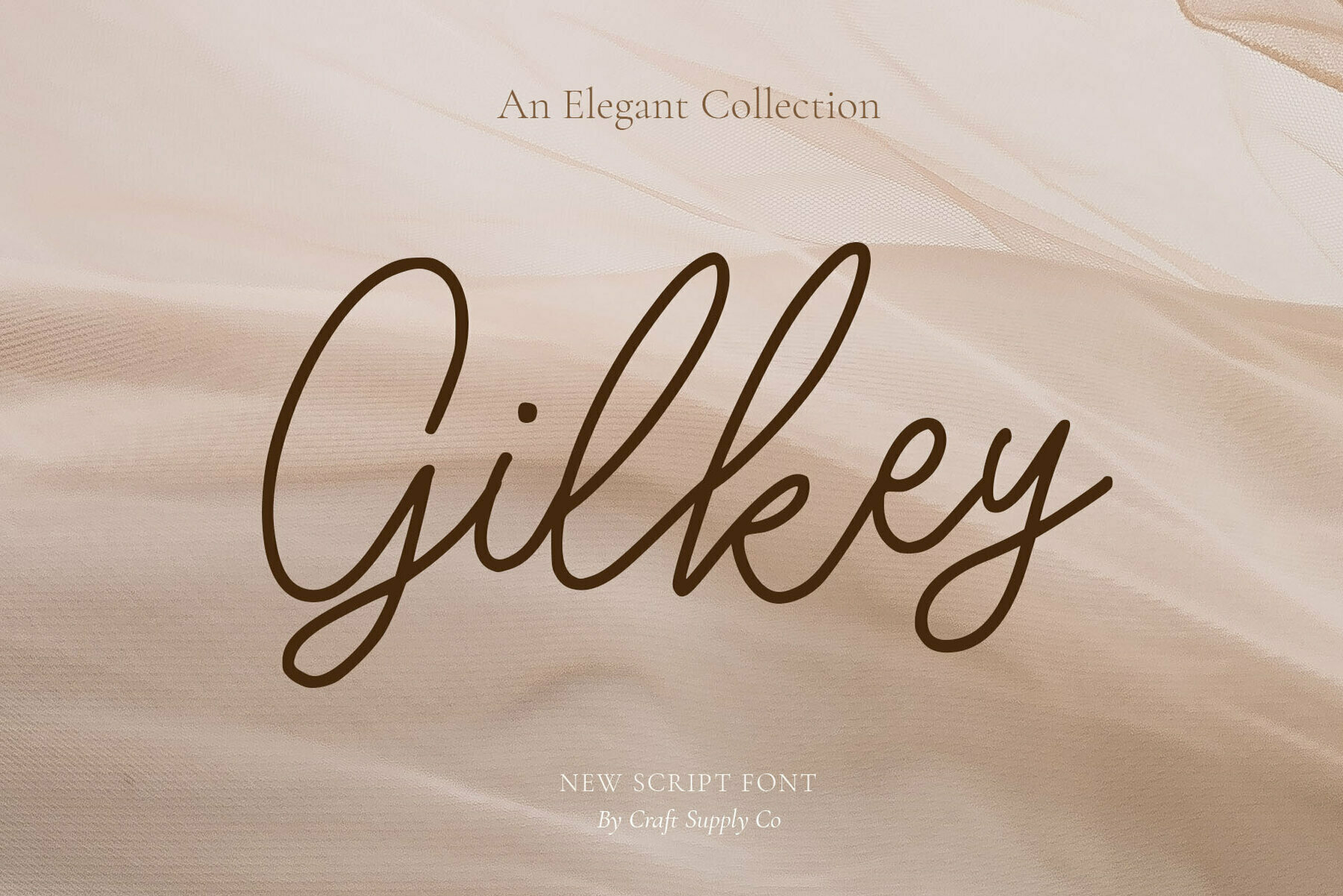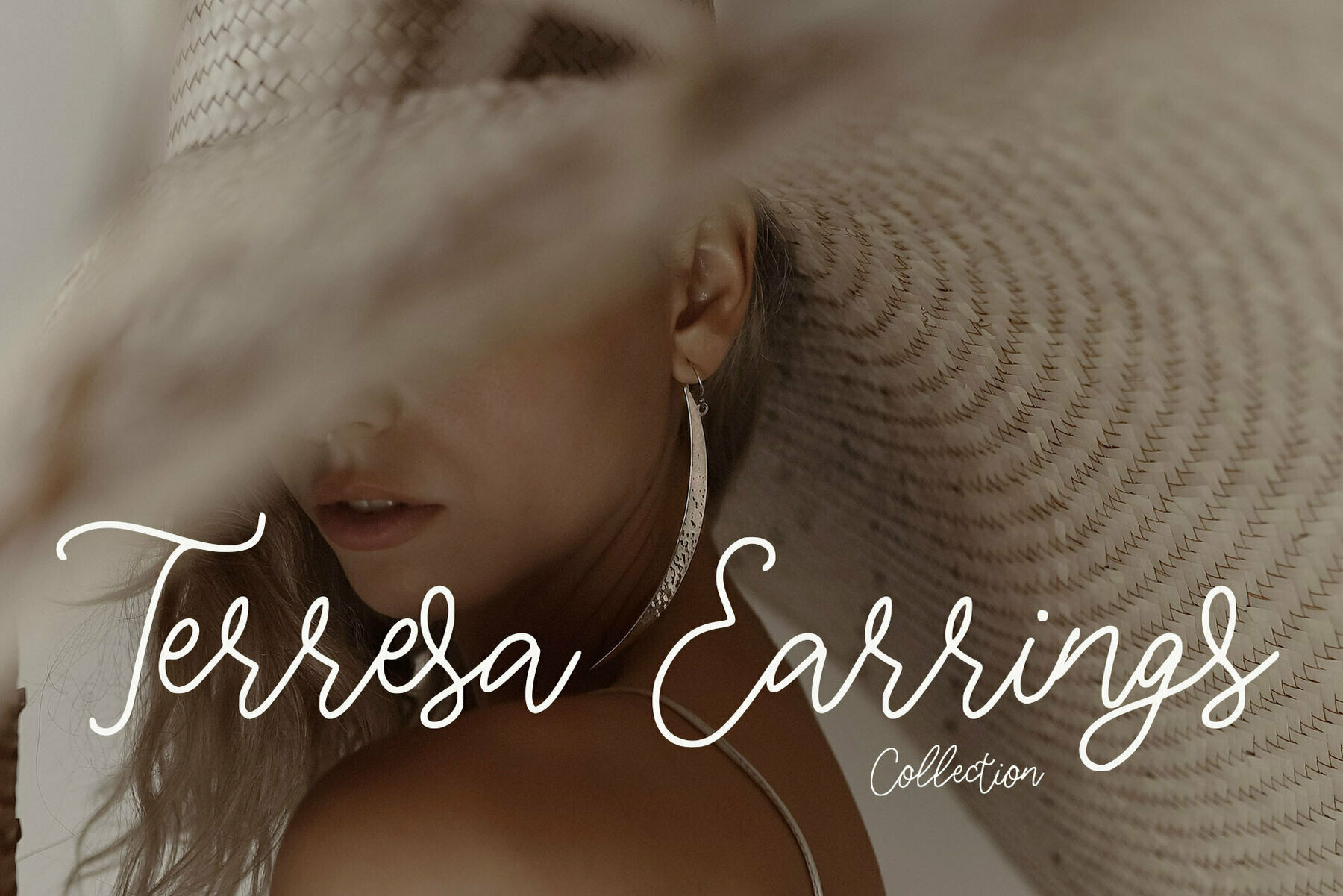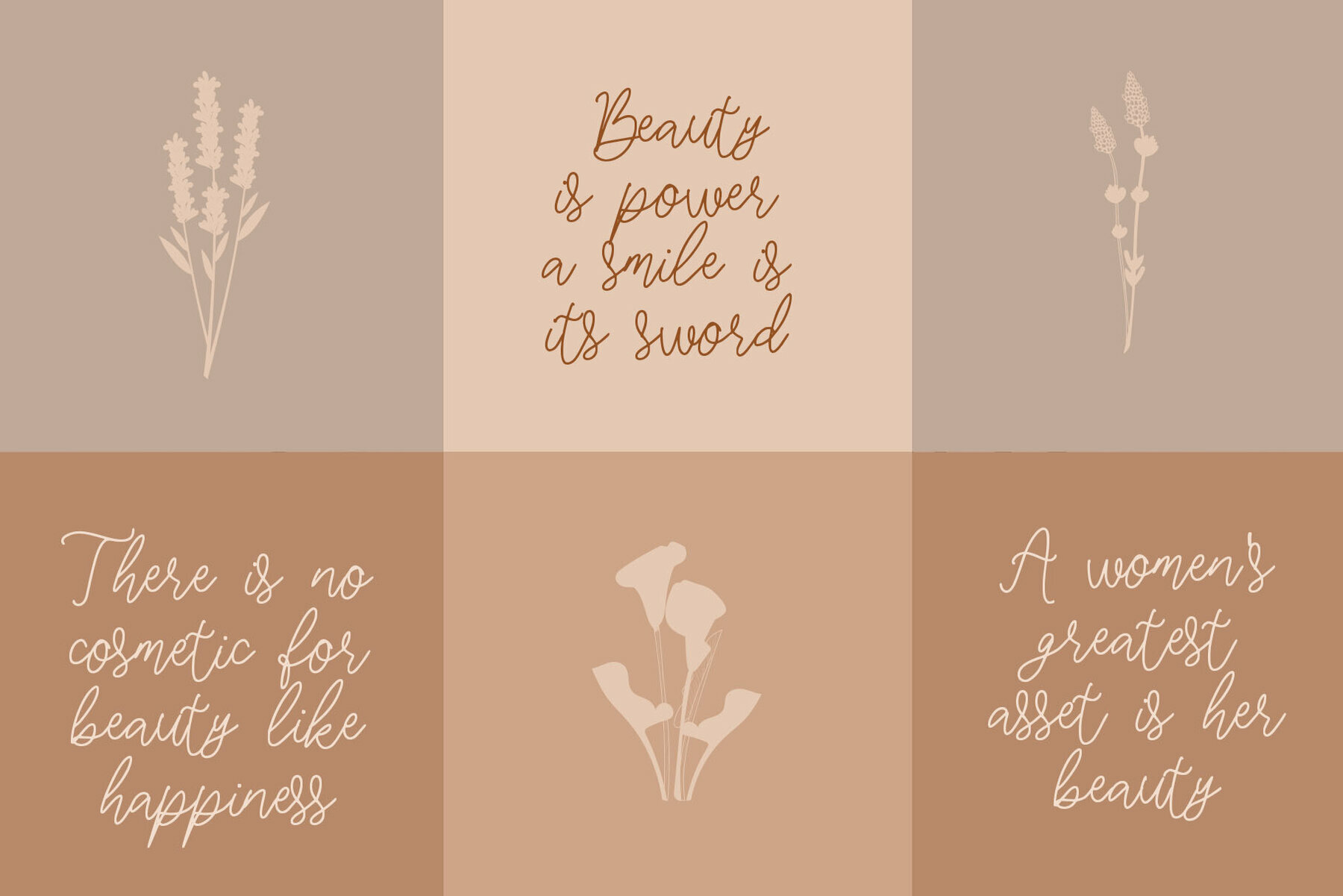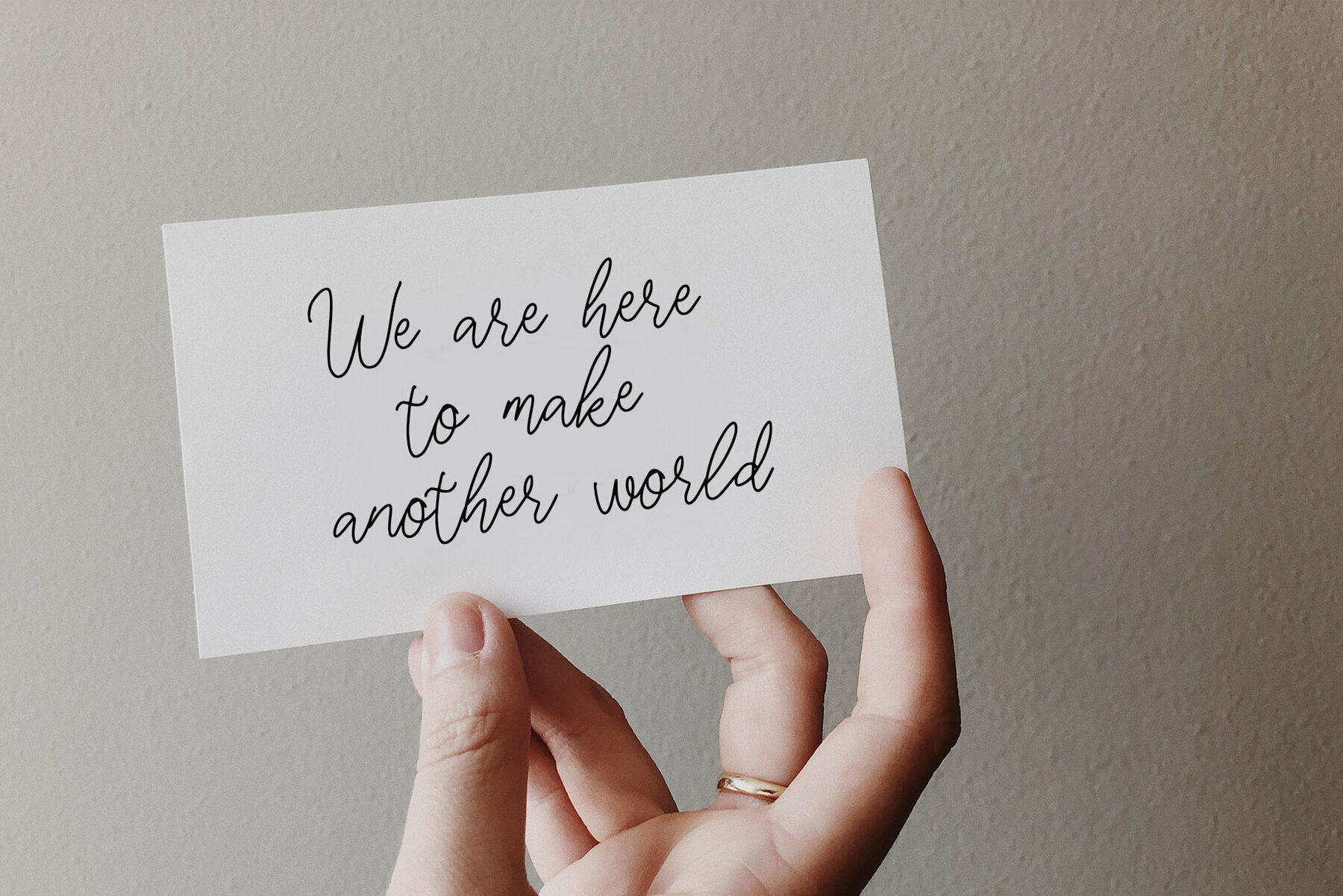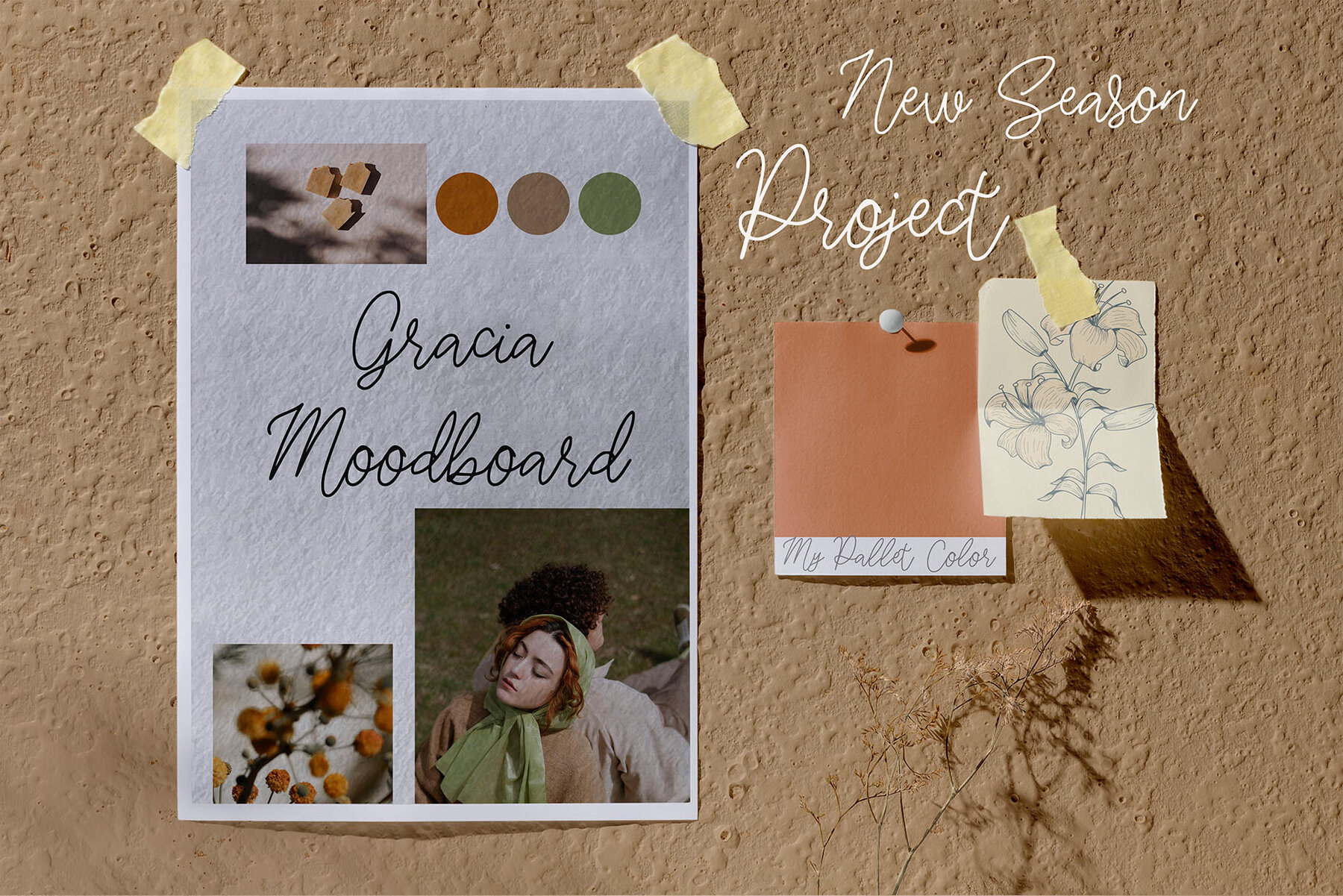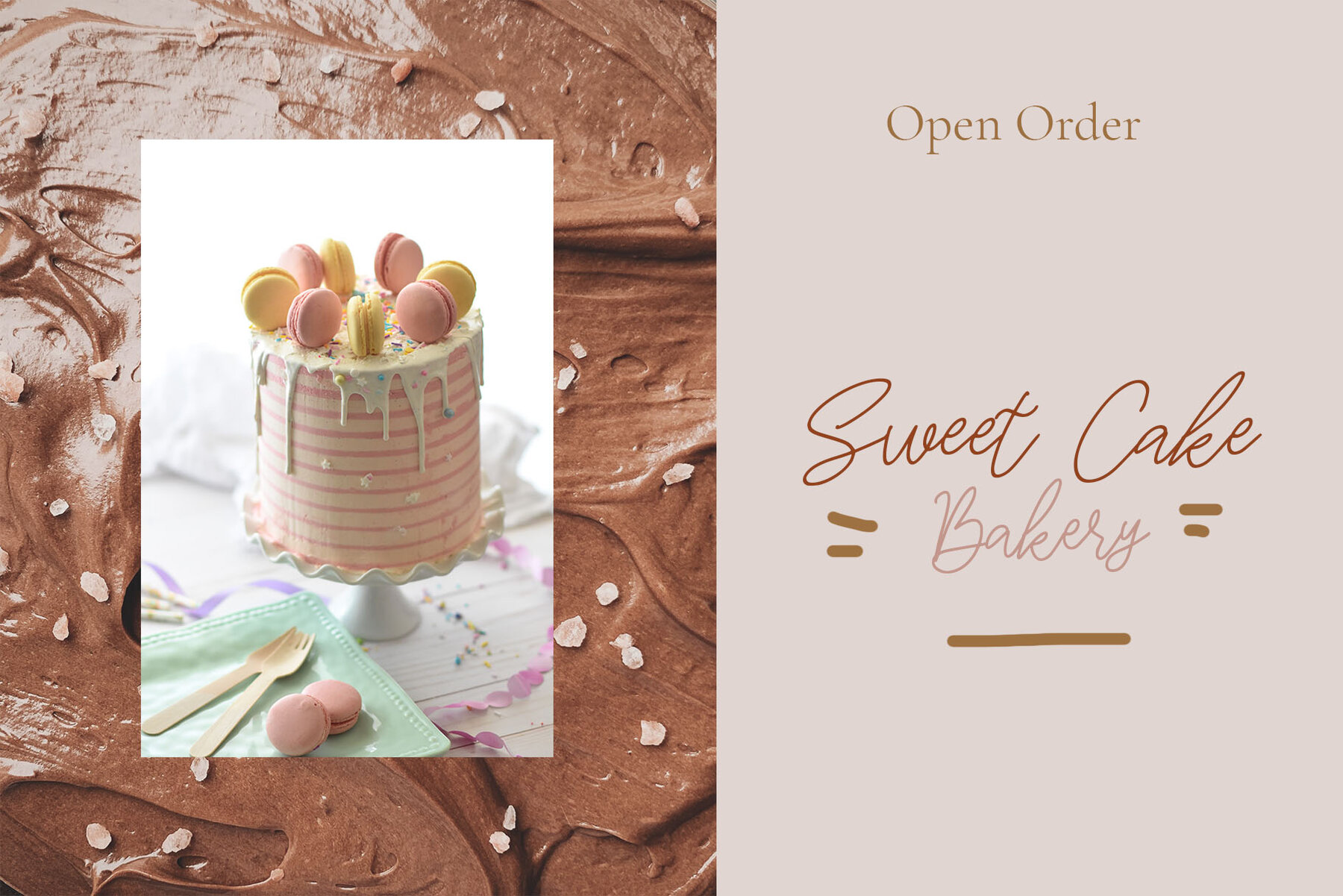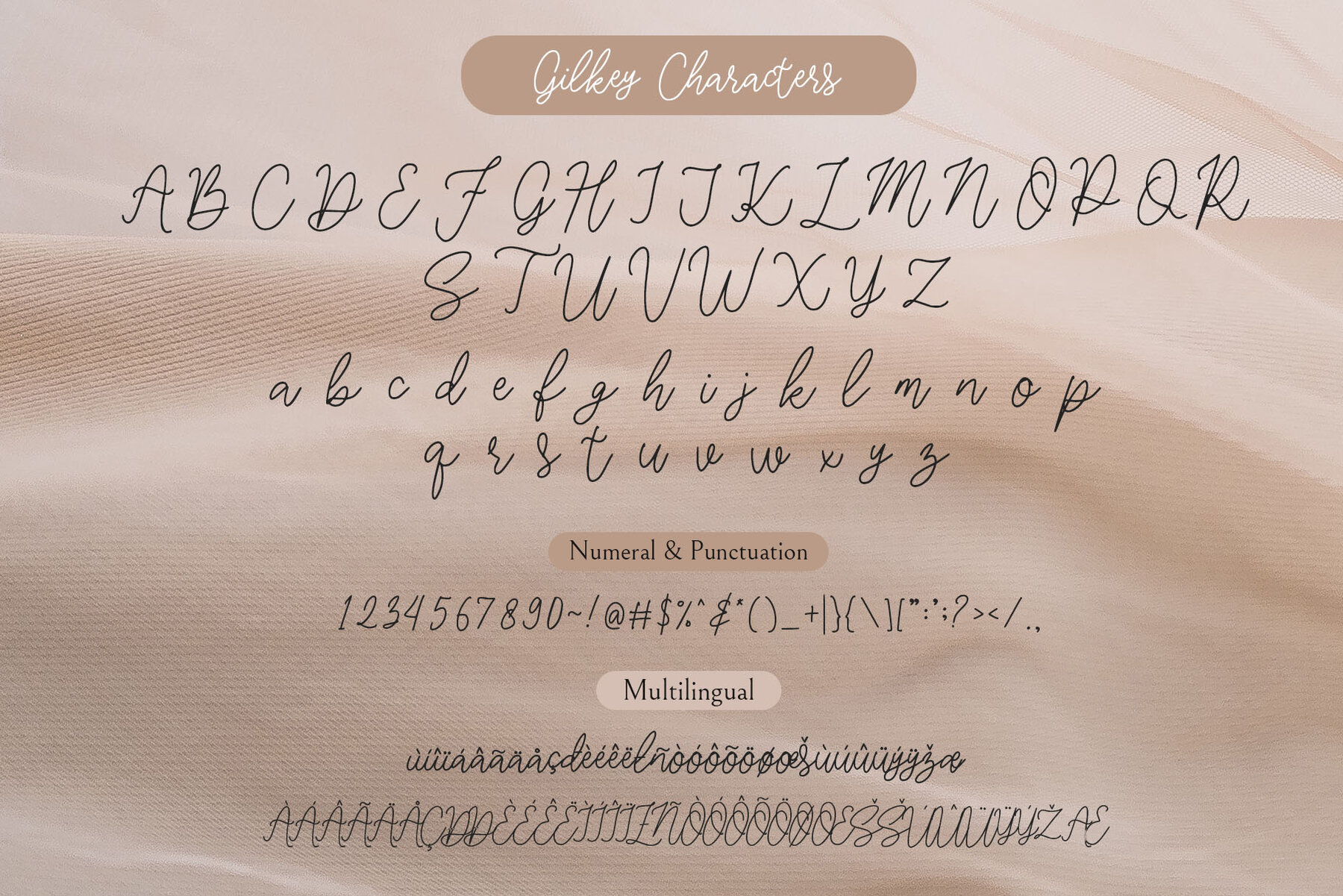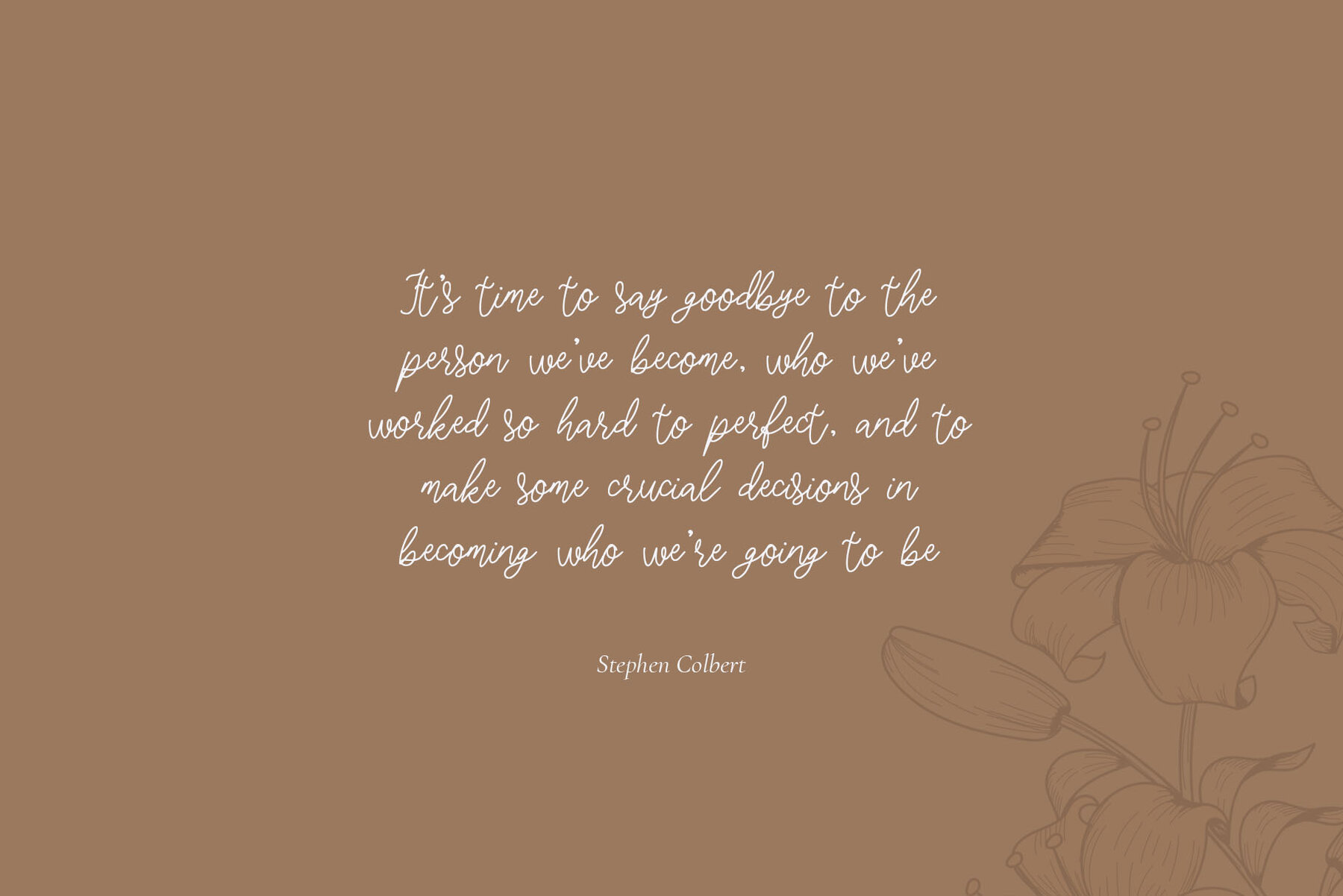
Gilkey Font
Presenting Gilkey—an elegant monoline script font that exemplifies the grace and fluidity of handwriting. Gilkey stands as an ideal choice for fashion and e-commerce brands, trend blogs, and wedding boutiques, offering a chic and upscale vibe. Whether crafting logos, greeting cards, or posters, this font encapsulates a timeless elegance that resonates with any business striving for sophisticated branding. Beyond its primary applications, Gilkey extends its charm to diverse design elements. Utilize it for name cards, stationery, blog headers, and art quotes. The style accommodates modern envelope lettering and book designs seamlessly, fitting hand-drawn or watercolor-themed projects beautifully. It elevates DIY projects, book titles, and any artistic endeavor needing a pretty and trendy touch.Gilkey: An Elegant Script Font for Modern Design